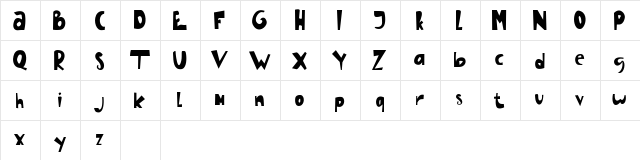
Kids - A Handwritten Fonts Regular
Design Context for Kids - A Handwritten Fonts Typeface
Kids - A Handwritten Fonts trades formality for fun, with bouncy, characterful letterforms that bring warmth and energy to any project.
Font Pairing: Pairs well with a rounded or humanist sans for body copy, maintaining the friendly tone without relying on Kids - A Handwritten Fonts to carry extended reading.
Pro Tip: Use Kids - A Handwritten Fonts at larger display sizes where its expressive character can land. Pair with a clean, simple sans for body copy to maintain readability.